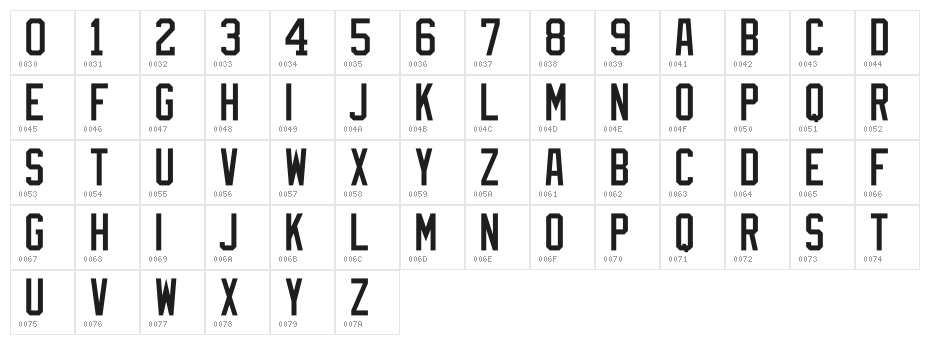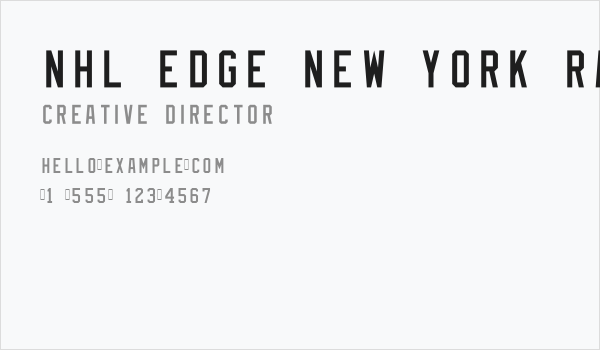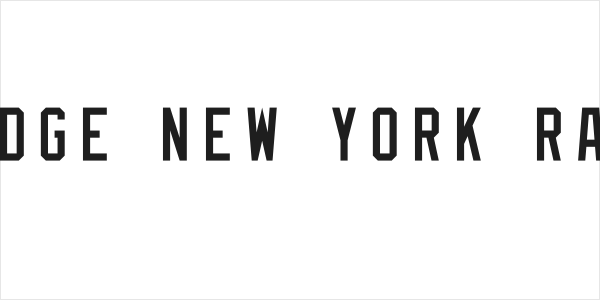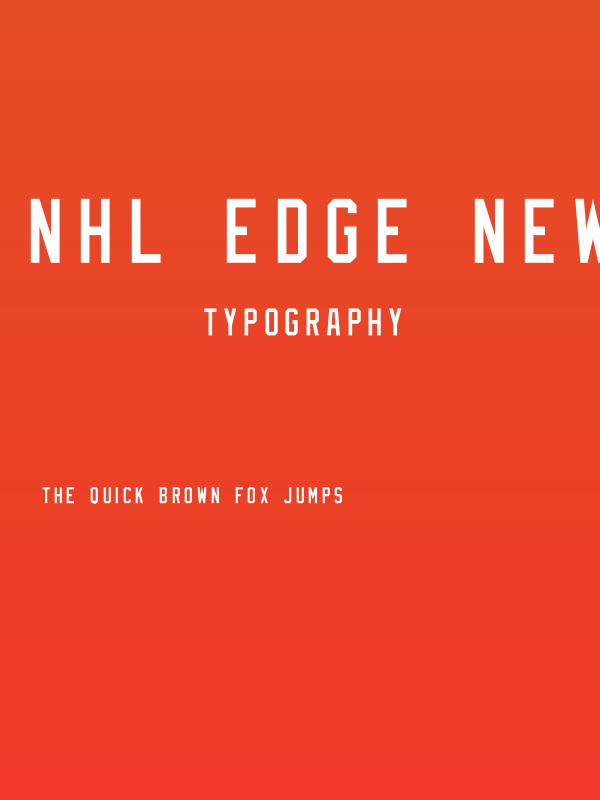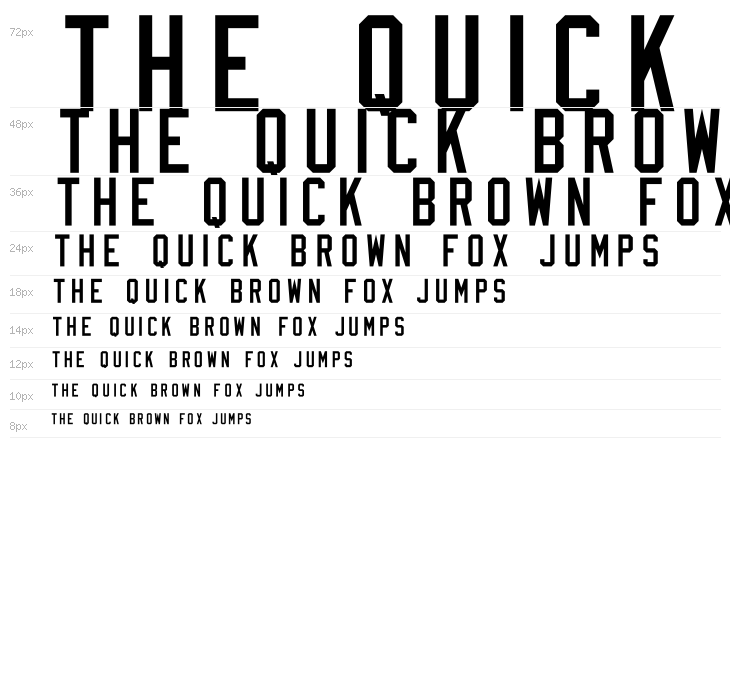
NHL Edge New York Rangers Font
NHL Edge New York Rangers Description
This font features a bold, angular design with a strong geometric influence. The uppercase letters are characterized by sharp edges and a uniform height, giving them a robust and impactful appearance. The numbers follow a similar style, maintaining consistency across the character set. The font's design is reminiscent of sports jerseys, with a modern and dynamic feel that conveys strength and energy. The spacing between characters is tight, enhancing the compact and cohesive look of the text. This typeface is well-suited for applications where a bold and assertive statement is desired.
| Proposed Projects | Ideal for sports team branding, athletic apparel, event posters, and dynamic logo designs. |